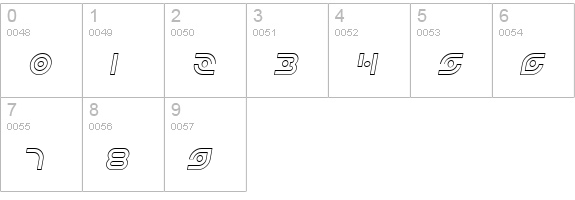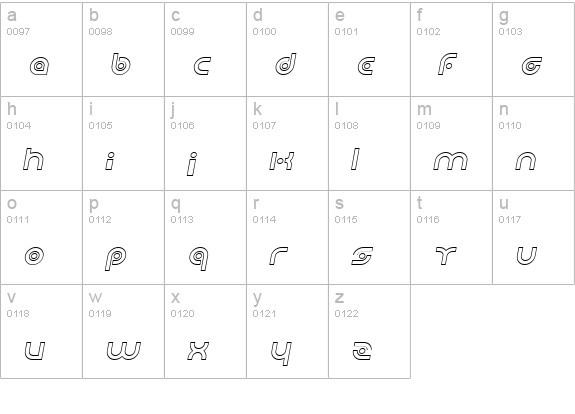
Planetary Orbiter Outline Italic is a distinctive, italic variant in the Planetary typeface family \xE2\x80\x94 well suited to design and typography projects.
The Planetary Orbiter Outline Italic font is a captivating and futuristic typeface that is sure to add a touch of otherworldly charm to your design projects. With its unique blend of sleek lines and bold strokes, this font effortlessly captures the essence of space exploration and cosmic adventures. The italicized version of the Planetary Orbiter Outline font adds an extra sense of movement and dynamism to your text, making it perfect for titles, headings, and any design element that needs to grab the viewer's attention. The slanted letters create a sense of energy and propulsion, giving your words a sense of forward motion. Whether you are working on a science fiction-themed project, a futuristic website, or simply want to add a touch of modernity and excitement to your designs, the Planetary Orbiter Outline Italic font is the perfect choice. Its clean and precise outlines give it a distinct and professional look, while the italicized style adds a hint of drama and intrigue. One of the best features of the Planetary Orbiter Outline Italic font is that it is freely available to download at FontsMarket.com. This means that you can easily incorporate it into your design arsenal without any cost. The font's accessibility and affordability make it an excellent option for designers, students, and anyone looking to add a unique and eye-catching element to their projects. So, whether you're looking to create a stunning poster, a captivating book cover, or a cutting-edge website, the Planetary Orbiter Outline Italic font is here to help you achieve your creative vision. Its futuristic and free-spirited design will surely make your text stand out and leave a lasting impression on your audience. Download it today from FontsMarket.com and embark on a typographic journey that is out of this world!